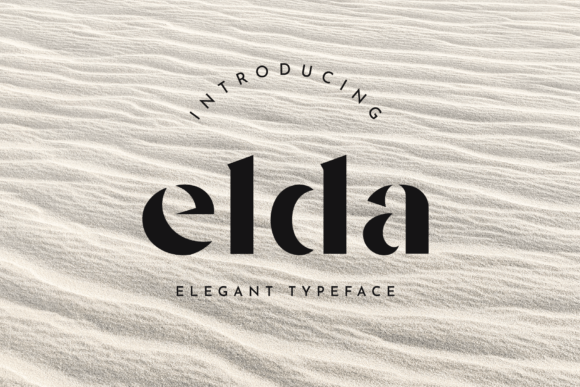
Elda Font: Elevate Your Design with Elegance and Sophistication
In the world of typography, fonts play a crucial role in conveying the tone and personality of a brand or design. Among the numerous fonts available, Elda Font stands out for its unique blend of elegance, minimalism, and boldness. This stunning stencil font is designed to add a touch of luxury to your designs, making it an excellent choice for various applications, from branding and packaging to posters and social media posts.
The Unique Characteristics of Elda Font
Elda Font is an elegant stencil font that boasts a distinctive yet minimalist appearance. Its unique design elements set it apart from other fonts, making it an attractive option for designers seeking to create visually striking designs. The font’s stencil style gives it a bold and modern look, while its elegant lines and curves add a touch of sophistication.
Key Features of Elda Font
- Elegant and Minimalist Design: Elda Font features a clean and minimalist design that exudes elegance and refinement.
- Unique Stencil Style: The font’s stencil style gives it a bold and modern appearance, making it perfect for designs that require a touch of edginess.
- Luxurious and Sophisticated: Elda Font’s elegant lines and curves add a touch of luxury and sophistication to any design.
- Versatile: This font is suitable for a wide range of applications, from branding and packaging to posters, social media posts, and headers.
Uses of Elda Font
Elda Font’s versatility makes it an excellent choice for various design applications. Here are some of the ways you can use this stunning font:
Branding and Identity
Elda Font is an excellent choice for branding and identity designs. Its elegant and sophisticated appearance makes it perfect for creating logos, business cards, and letterheads that convey a sense of luxury and refinement.
Packaging Design
The font’s bold and modern stencil style makes it an attractive option for packaging design. Use Elda Font to create eye-catching labels, product packaging, and wrapping papers that stand out on store shelves.
Posters and Flyers
Elda Font’s elegant and minimalist design makes it perfect for creating striking posters and flyers. Use it to add a touch of sophistication to your promotional materials and make them more effective.
Social Media Posts
In today’s digital age, social media posts play a crucial role in engaging with your audience. Elda Font can help you create visually appealing social media posts that stand out in crowded feeds.
Headers and Titles
The font’s bold and elegant appearance makes it an excellent choice for headers and titles. Use Elda Font to create striking headings that add a touch of sophistication to your designs.
Why Choose Elda Font?
With so many fonts available, why should you choose Elda Font for your designs? Here are some compelling reasons:
Unique and Exclusive
Elda Font’s unique design elements make it an exclusive and distinctive font that sets your designs apart from others.
High-Quality Design
The font is designed with high-quality craftsmanship, ensuring that it looks stunning in any design application.
Easy to Read and Versatile
Elda Font is easy to read and versatile, making it suitable for a wide range of design applications.
Luxurious and Sophisticated
The font’s elegant and sophisticated appearance adds a touch of luxury to any design, making it perfect for high-end brands and designs.
In conclusion, Elda Font is an exceptional font that offers a unique blend of elegance, minimalism, and boldness. Its versatility, high-quality design, and luxurious appearance make it an excellent choice for various design applications. Whether you’re a designer, brand owner, or simply someone looking to elevate your design game, Elda Font is an excellent addition to your typography arsenal.